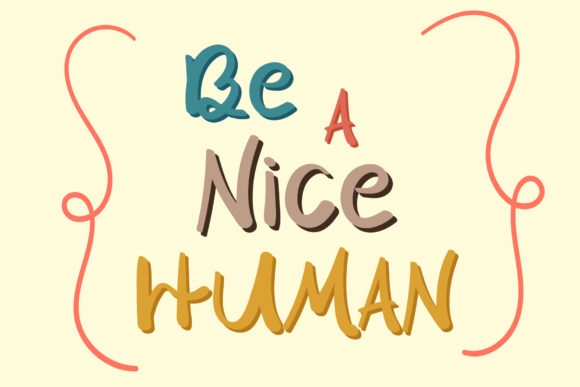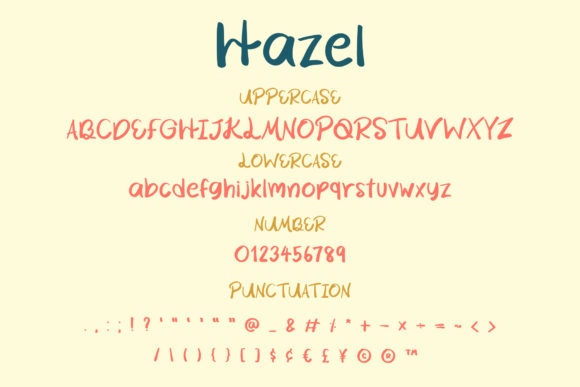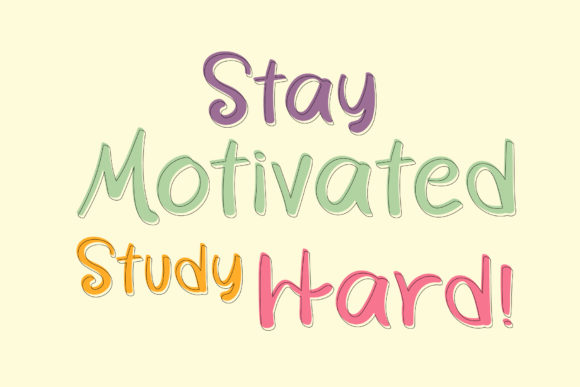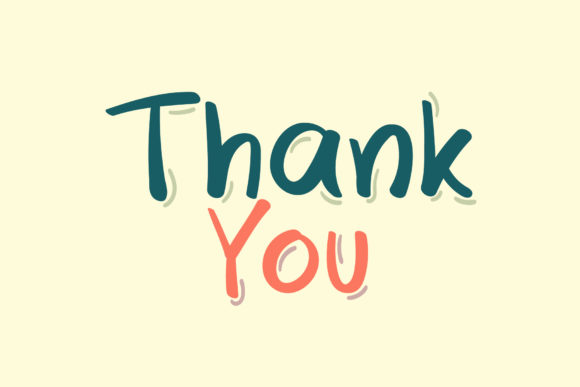
About Hazel Font
Hazel is a cute and casual handwritten font, created with the help of a lovely brush pen. Fall in love with its incredibly versatile style and use it to create gorgeous wedding invitations, beautiful stationary art, eye-catching social media posts, and much more!